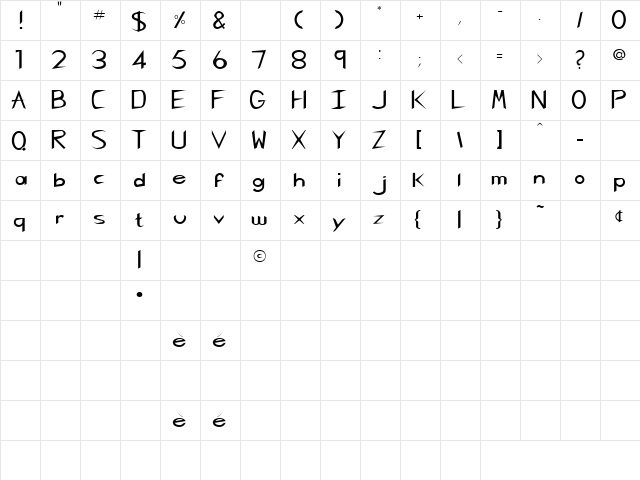
GregorianHT Normal
Design Context for GregorianHT Typeface
GregorianHT is a composed and adaptable typeface that performs quietly and consistently across a wide range of design contexts.